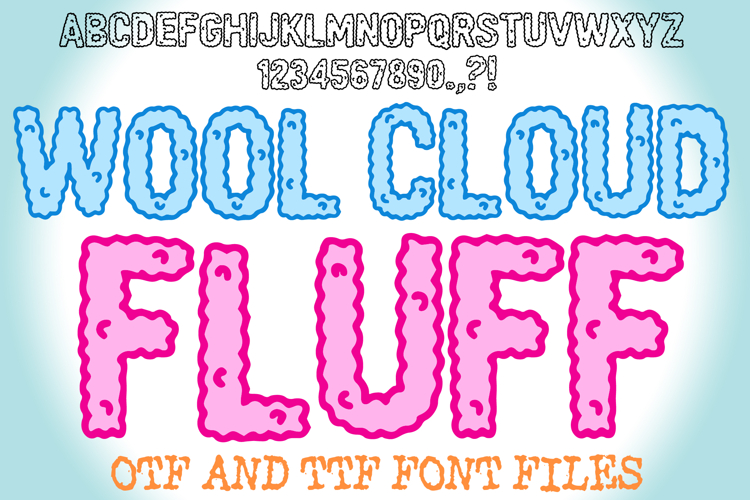
Wool Cloud Fluff Lettering ABC Font Typeface Alphabet OTF
Wrap your designs in warmth and whimsical charm with Wool Cloud Fluff Font! This delightfully tactile typeface evokes the cozy, comforting sensation of soft wool, fluffy clouds, or gentle cotton. It's more than just a font; it's an invitation to a world of softness and playfulness, perfect for projects that need a touch of heartwarming cuteness and organic texture.
Each character in Wool Cloud Fluff Font is crafted with a charmingly irregular, bubbly outline, filled with a delicate, cloud-like texture that gives it a wonderfully plump and inviting appearance. This unique visual effect makes it an ideal choice for children's books, cozy branding, craft projects, nursery decor, winter-themed designs, or any creative work that calls for a blend of softness, warmth, and whimsical charm.
Whether you're creating invitations for a baby shower, designing labels for handmade goods, crafting cheerful social media posts, or adding a gentle touch to printable materials, this font will bring an undeniable sense of comfort, originality, and a lovable, textured aesthetic to your work. Its clear yet soft forms ensure readability while delivering a memorable visual experience.
If you're looking to infuse your designs with a sense of playful softness, charming texture, and an undeniable cozy vibe, Wool Cloud Fluff Font is your ultimate tool. Get fluffy with your creativity!